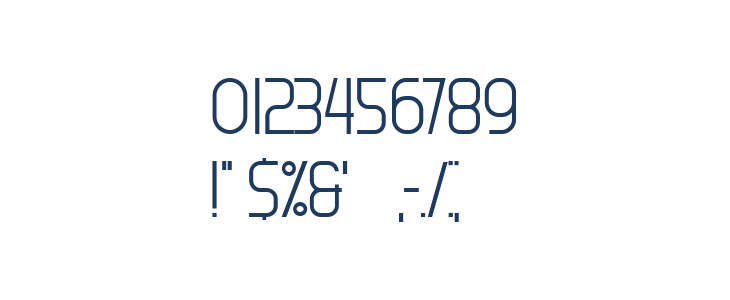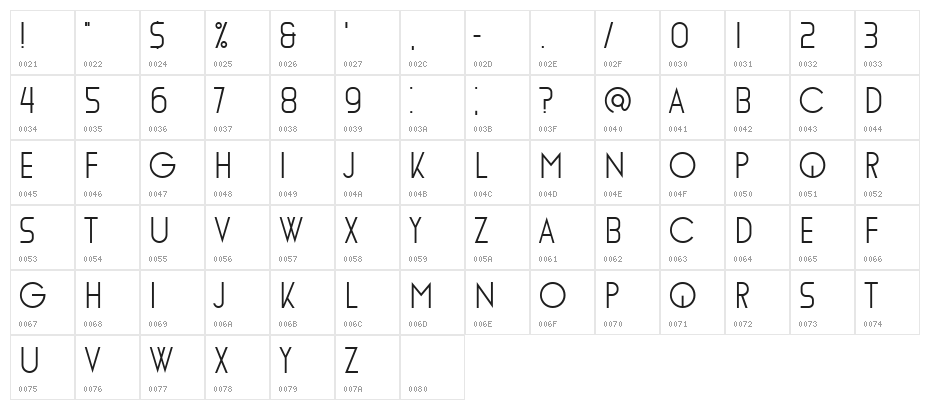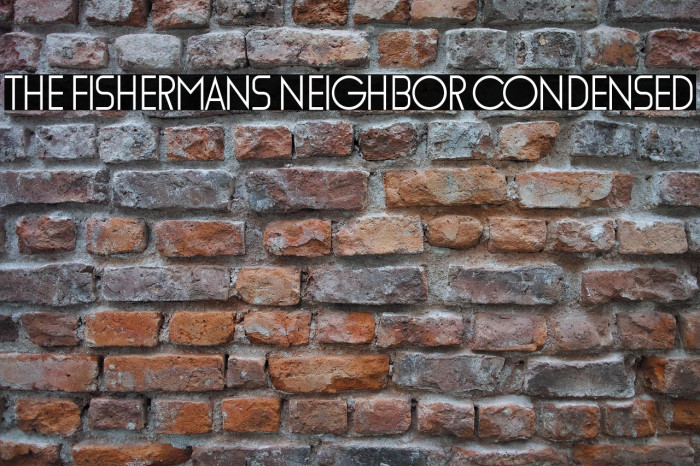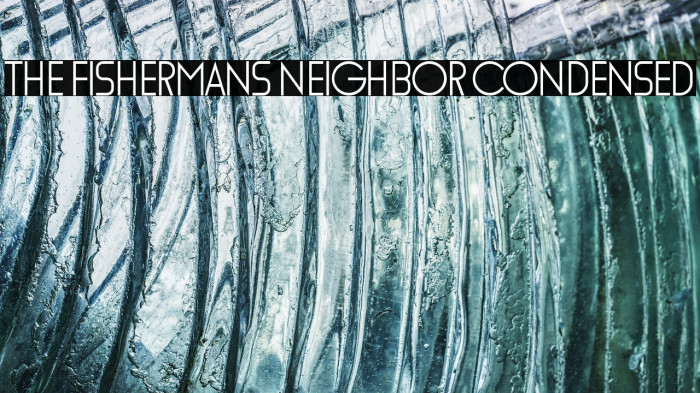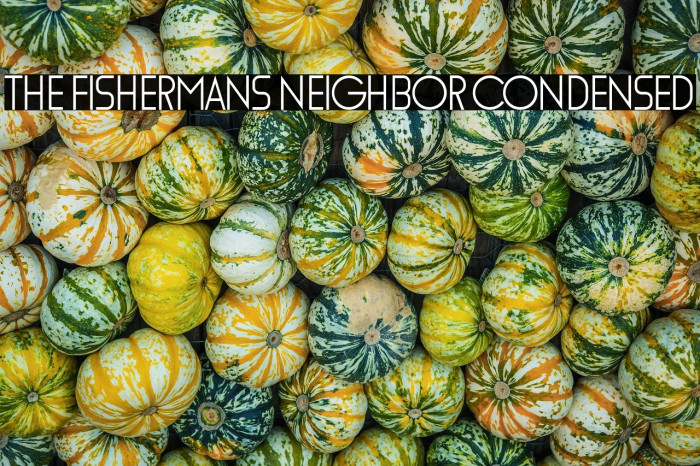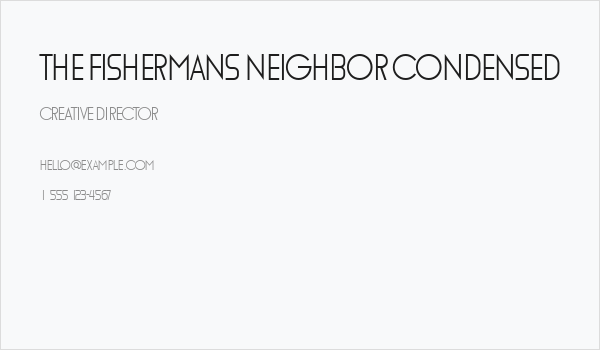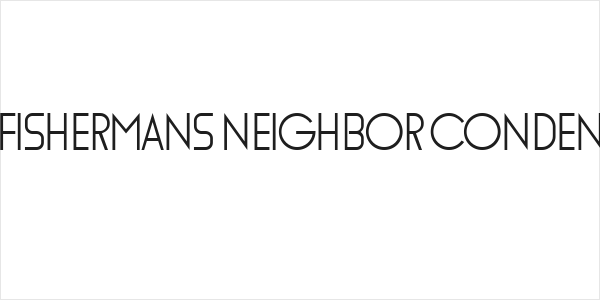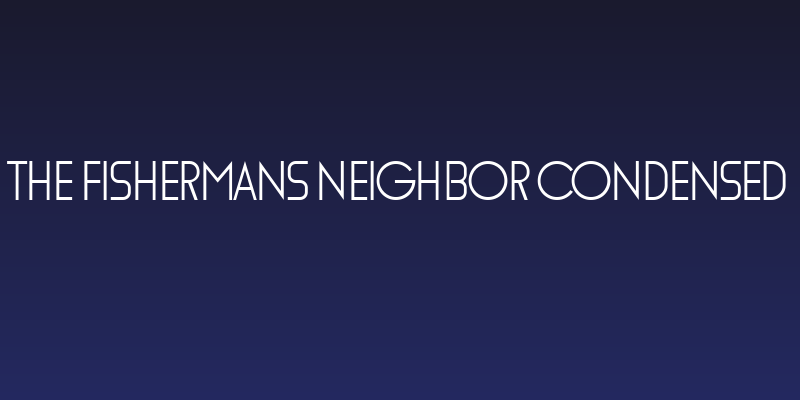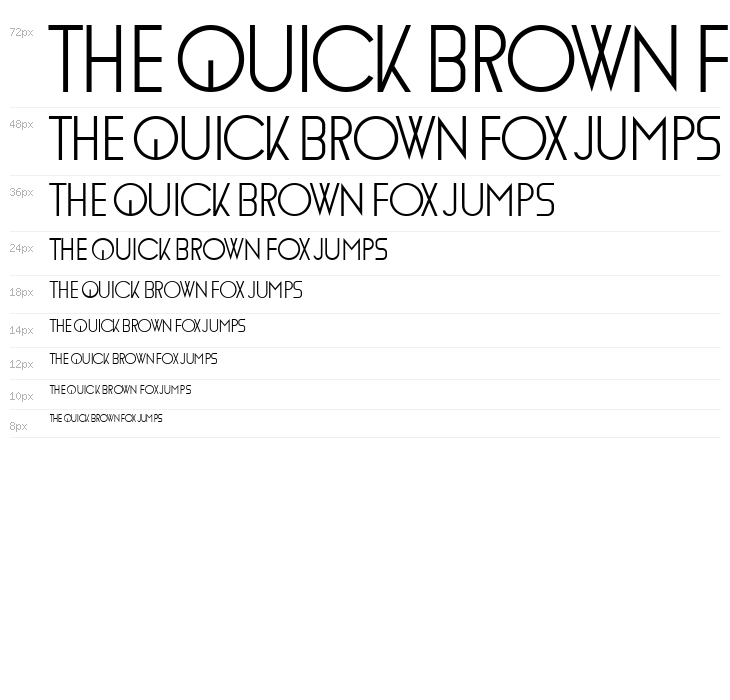
The Fishermans Neighbor Condensed Font
The Fishermans Neighbor Condensed Description
This font features a modern and sleek design with a geometric structure. The characters are condensed, giving it a compact appearance that is both stylish and efficient in space usage. The clean lines and uniform stroke widths contribute to a contemporary aesthetic, making it suitable for a variety of design applications. The uppercase and lowercase letters maintain a consistent height, enhancing readability. The numerals are clear and distinct, while the special characters are well-integrated, maintaining the overall design coherence.
| Use Case | Headlines, Logos, Digital Interfaces |
| Proposed Projects | Ideal for branding, editorial design, posters, and digital interfaces where a modern and space-efficient typeface is desired. |